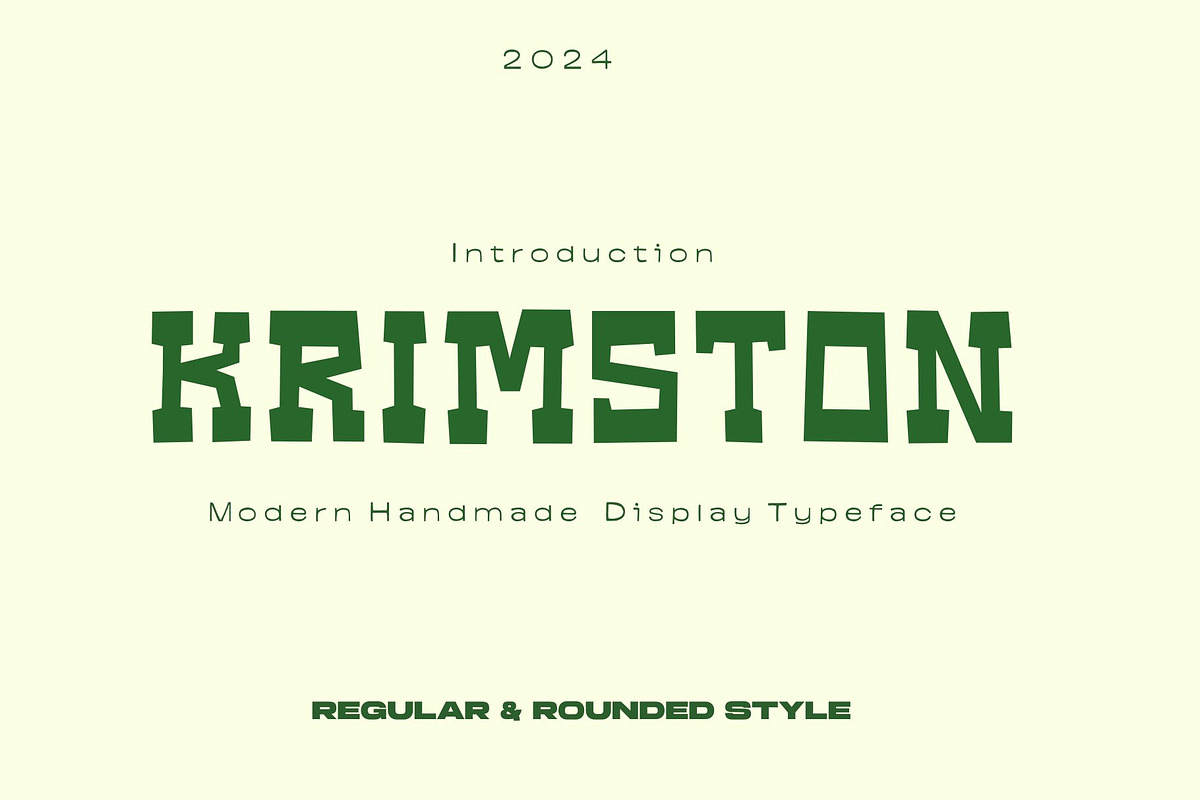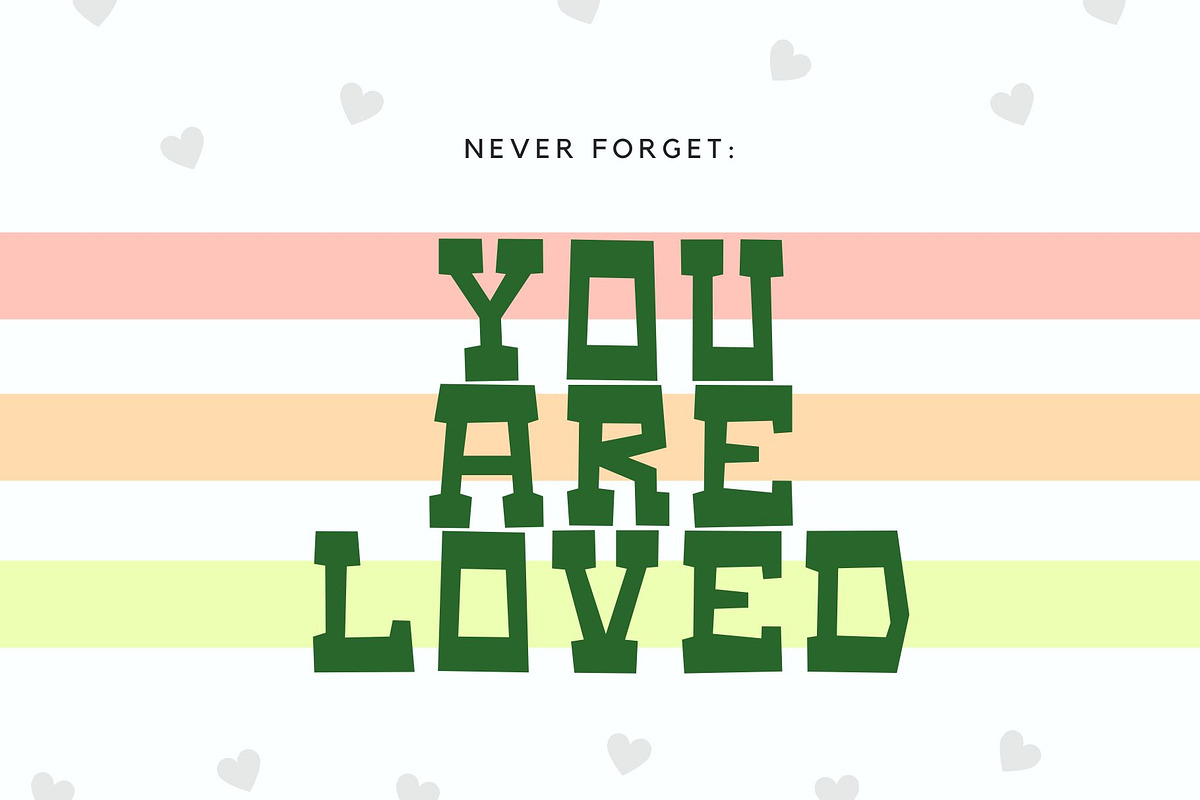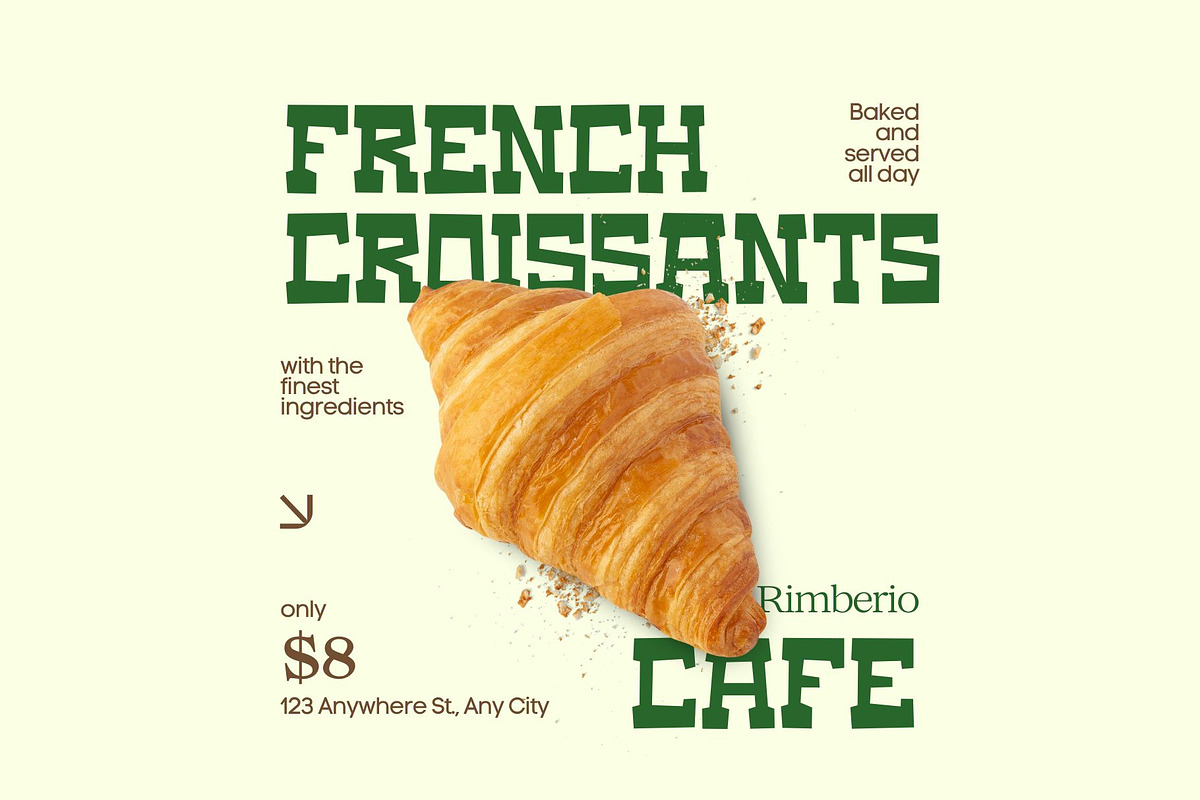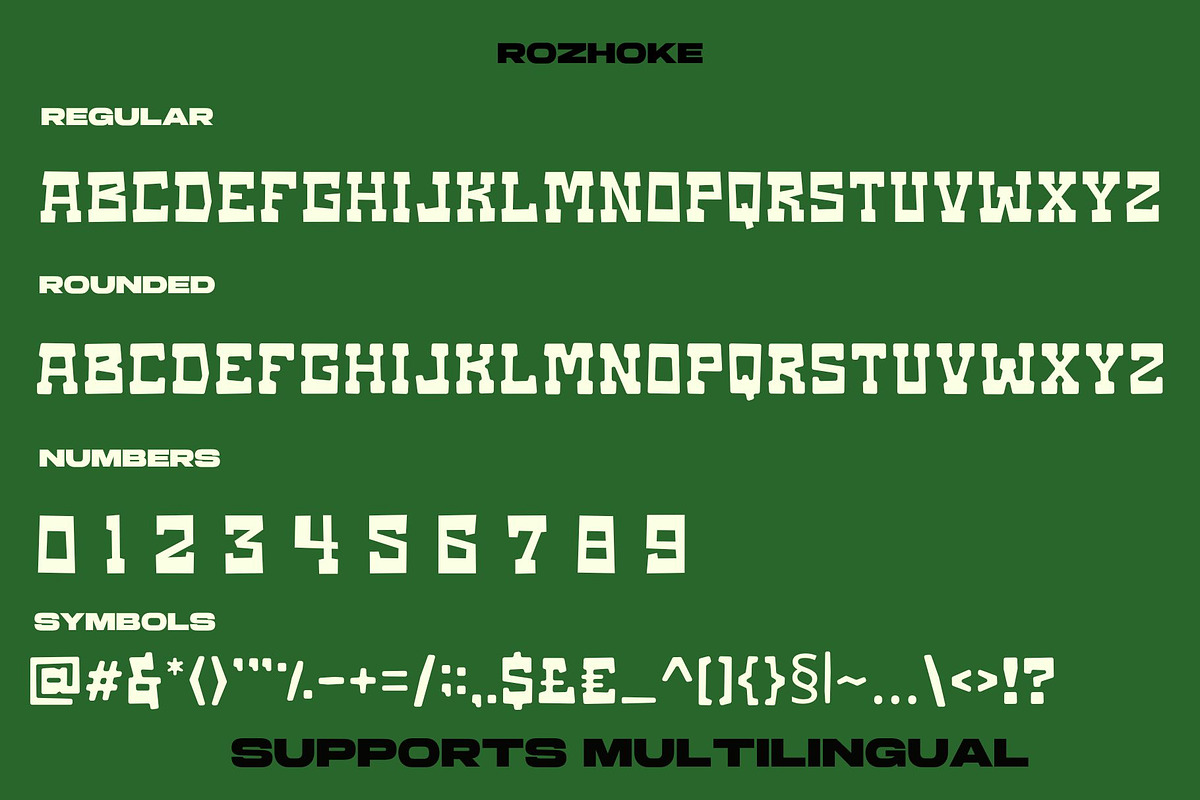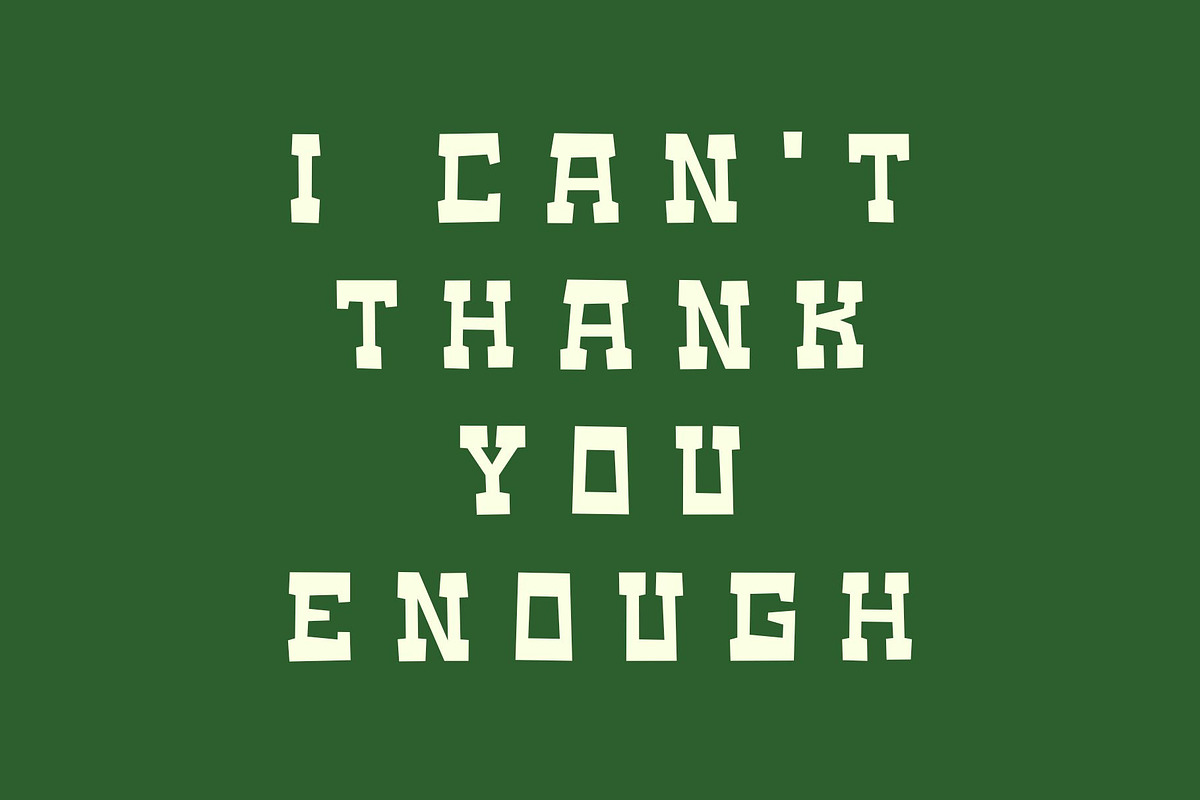
Krimston-Rounded Display Typeface
Krimston is based on Rounded and Regular Sans design yet features rounded shapes. Its rounded, soft terminals give it a friendly and expressive look, and its modern and contemporary style as well as its classic proportions make it an excellent choice for headlines, logotypes, branding, books, magazines, motion graphics, and use on web and Tv. One of its key features is a large x-height which make it look elegant and classy. The standard Rounded serif version—fresh, clean and contemporary—is a perfect choice for editorial and corporate design, headlines, books, magazines or any other piece of graphic design.